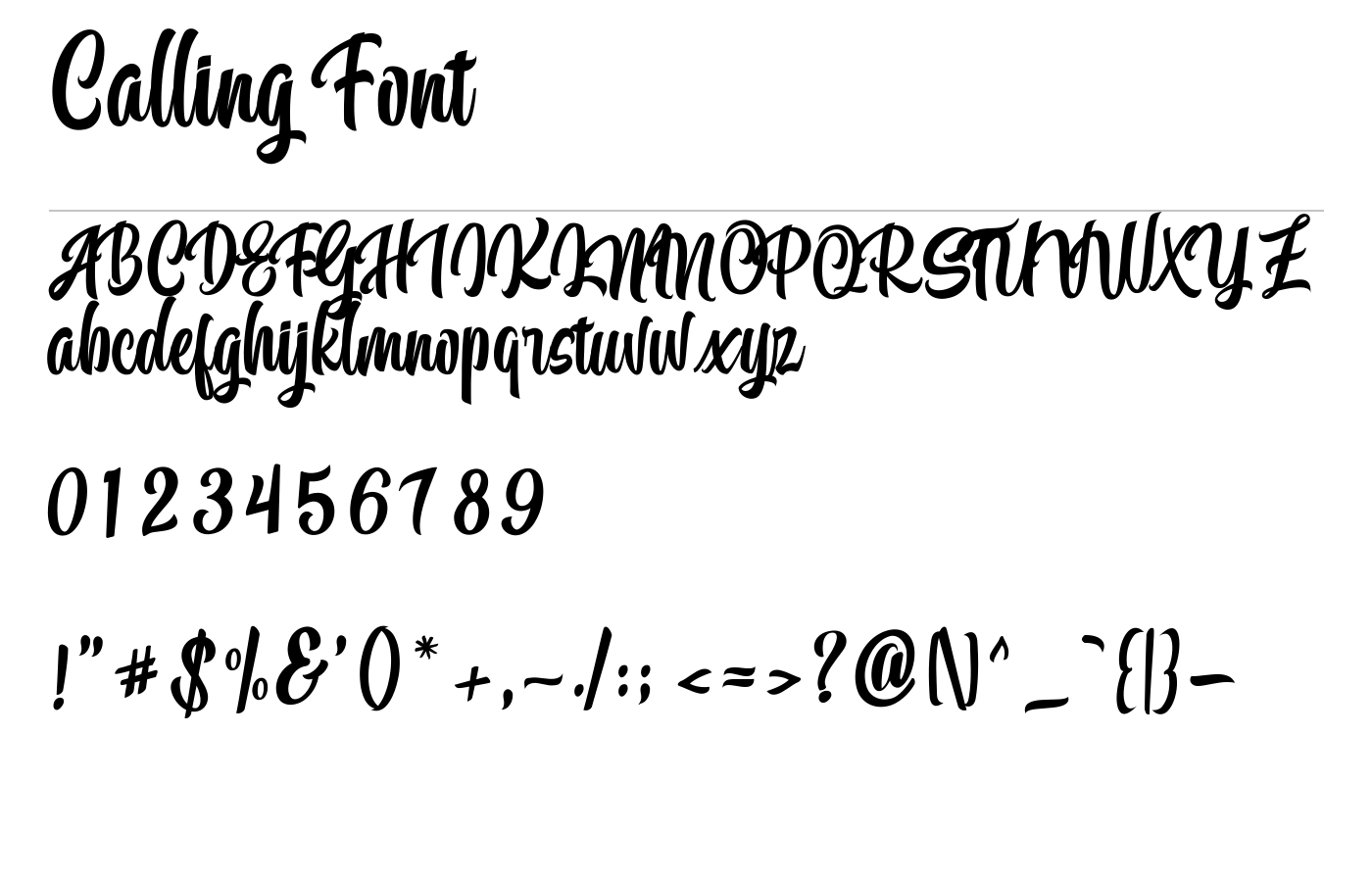
Calling Font is a lively and elegant script typeface that features smooth, flowing strokes with a medium weight and moderate contrast. Its handwritten style with distinctive curves and a slightly condensed feel makes it perfect for adding a personal and friendly touch to branding, invitations, and creative projects. This font works well in headlines and logos where a stylish, approachable, and modern calligraphic look is desired.
Calling Font
About Calling Font